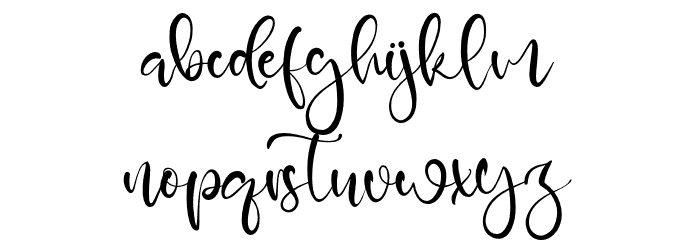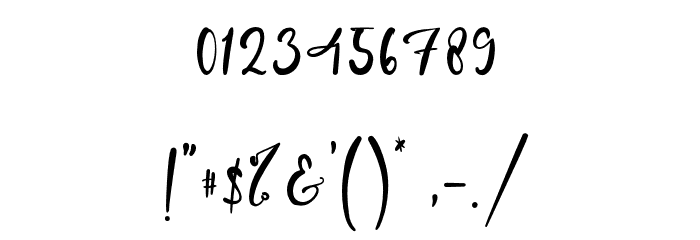
ZahraLovely Font
This font exudes a charming and whimsical style, characterized by its flowing, cursive script that mimics elegant handwriting. The letters are interconnected with smooth, sweeping curves, giving it a fluid and dynamic appearance. The uppercase letters are bold and prominent, while the lowercase letters maintain a delicate balance with their slightly smaller size and intricate loops. The numbers and special characters follow the same graceful design, ensuring consistency throughout. This font is perfect for adding a personal touch to any project, making it ideal for invitations, greeting cards, and branding materials.
A whimsical, cursive script font with elegant, flowing lines.
- Font: ZahraLovely
- Proposed Projects: Ideal for wedding invitations, greeting cards, personal branding, and decorative projects.
- Category: Script
- Use Case: Logos, Invitations, Greeting Cards